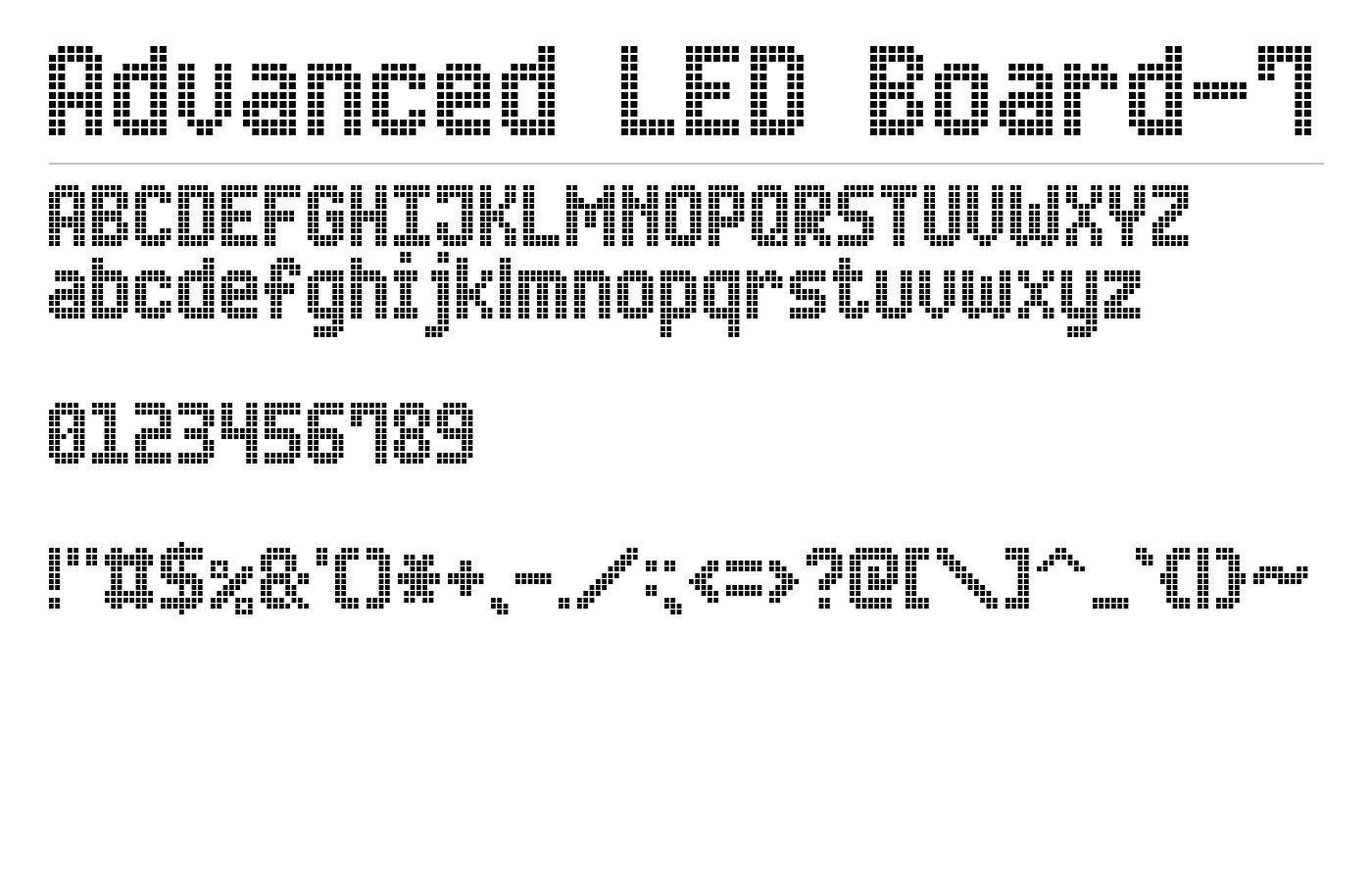
Advanced LED Board-7 is a pixelated, monospaced sans serif font designed to resemble the display of an LED board, featuring uniform square dots that create a futuristic, digital aesthetic. Its regular weight and blocky grid structure give it a clear, mechanical feel that works especially well for tech-themed designs, signage, or digital interfaces. This font is ideal for headlines, logos, and displays where a modern, electronic vibe is desired.
Advanced LED Board-7 Font
About Advanced LED Board-7 Font
| Font family | Advanced LED Board-7 Font |
| Designer | Sizenko Alexander |